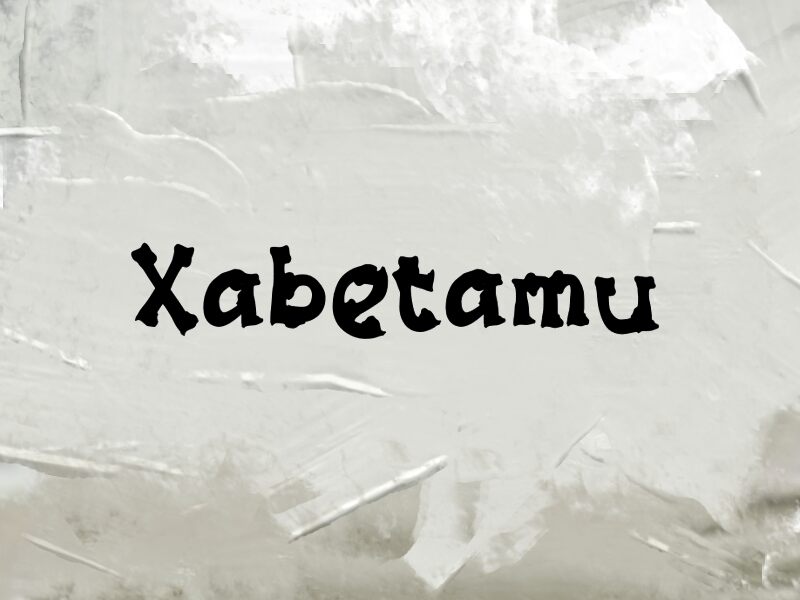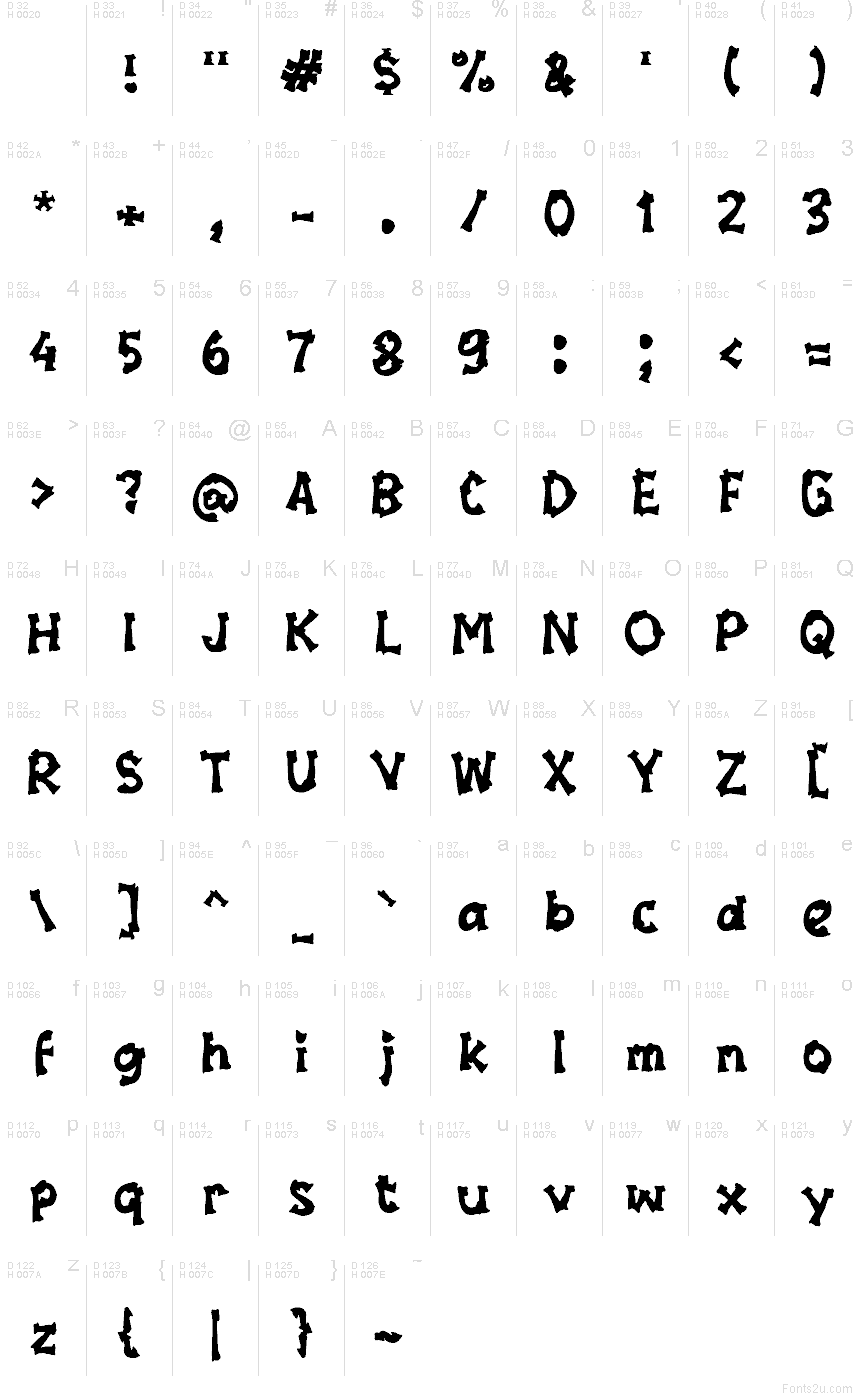
Xabetamu by Wep is a free medieval-fantasy display font with chunky, carved-looking letters and a deliberately uneven silhouette. The shapes feel hand-cut rather than polished, with swollen curves, blunt edges, and little notches that give the font a storybook, old-world mood.
That makes it a natural fit for game logos, folk festival posters, fantasy book covers, tavern menus, and themed packaging where the letters need to feel rustic and slightly mischievous. As a free font, it also works well for short title cards or big drop-ins, because those rough contours carry the character without needing much else around them.
Xabetamu by wep is a free medieval-folk display font.